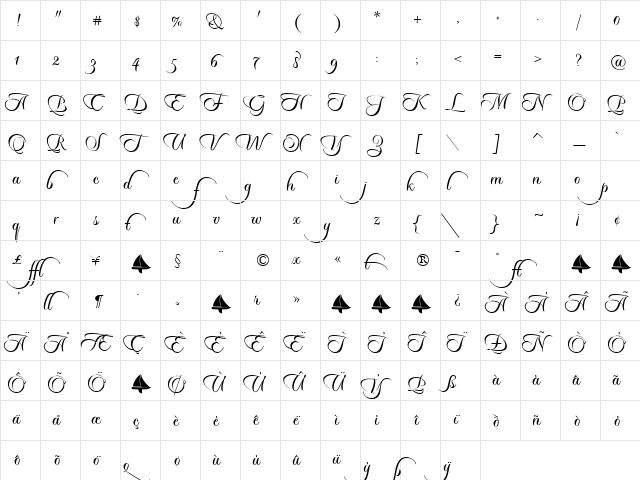
Sloop-ScriptThree (Upright) Regular
Design Context for Sloop-ScriptThree (Upright) Typeface
Sloop-ScriptThree (Upright) brings a calligraphic fluidity to the page — its connecting strokes and expressive curves give it an unmistakably human quality.
Font Pairing: Combine Sloop-ScriptThree (Upright) with a simple geometric sans for maximum contrast — the tension between flowing curves and clean structure is a classic typographic pairing.
Pro Tip: Use Sloop-ScriptThree (Upright) for short runs of text — names, titles, or taglines. Extended body copy in script faces tires the eye quickly.